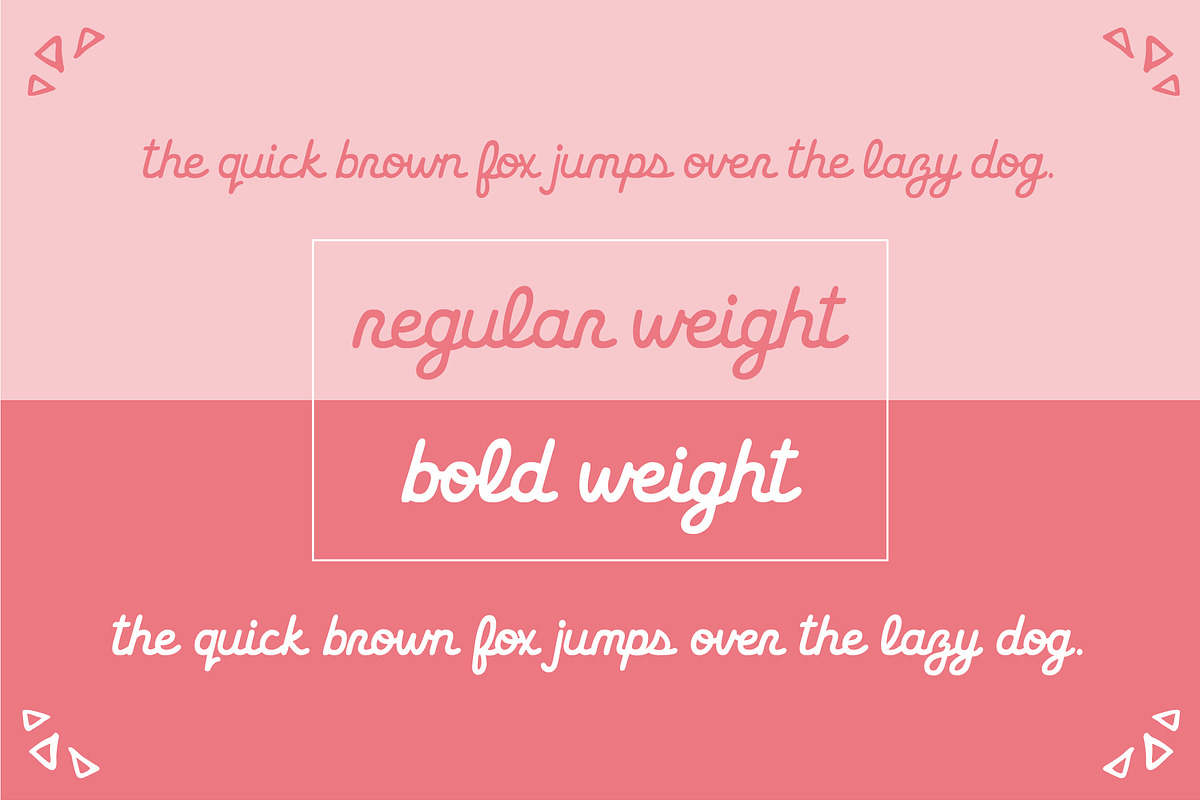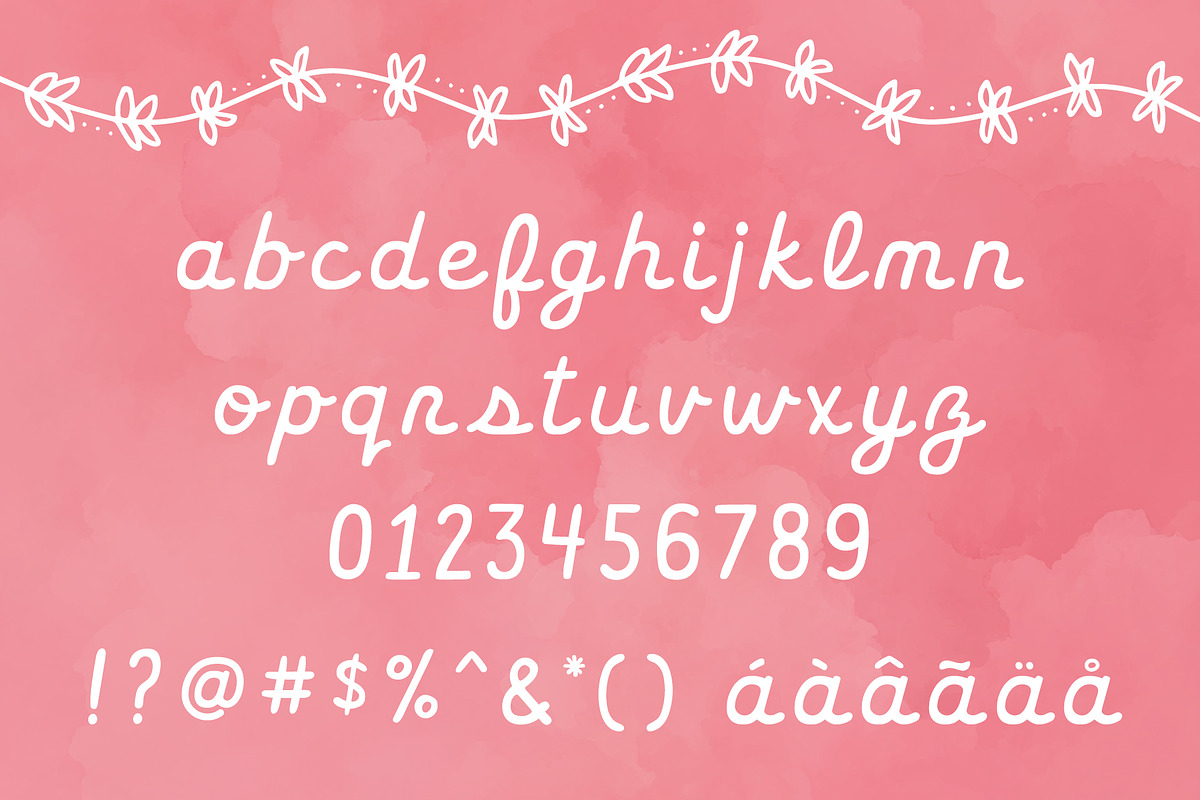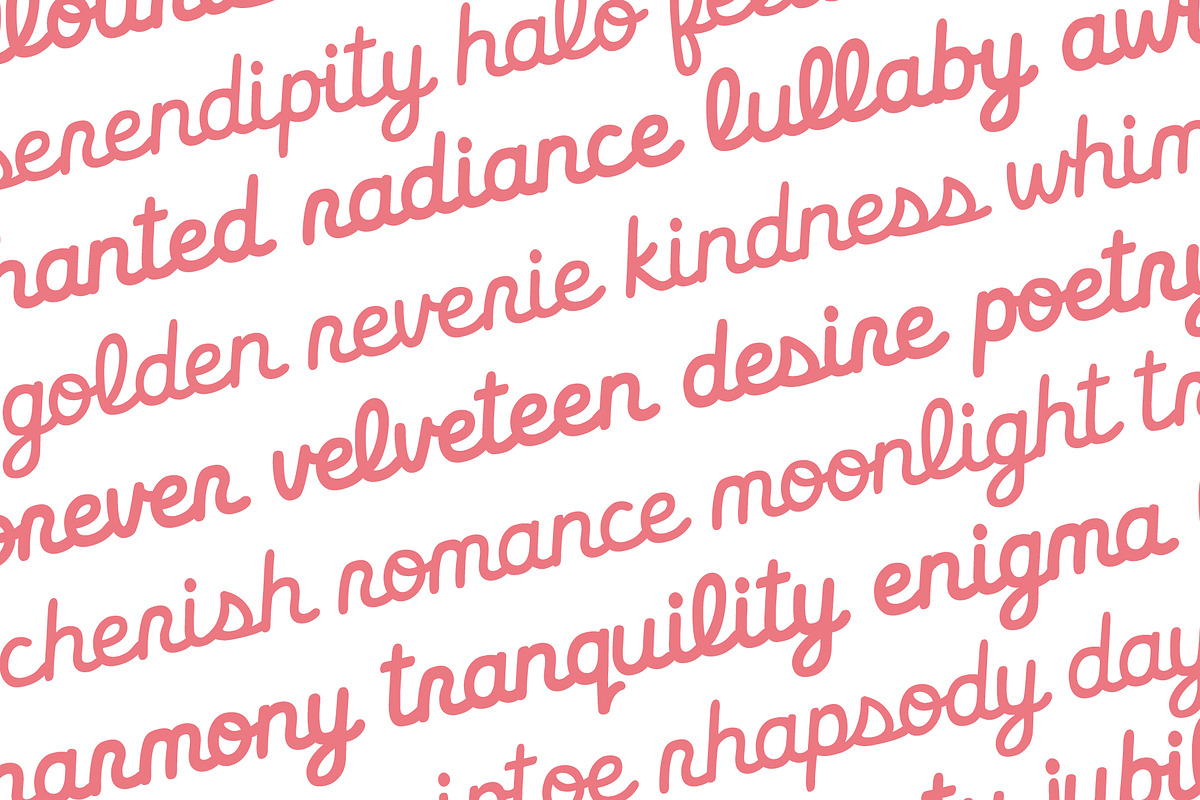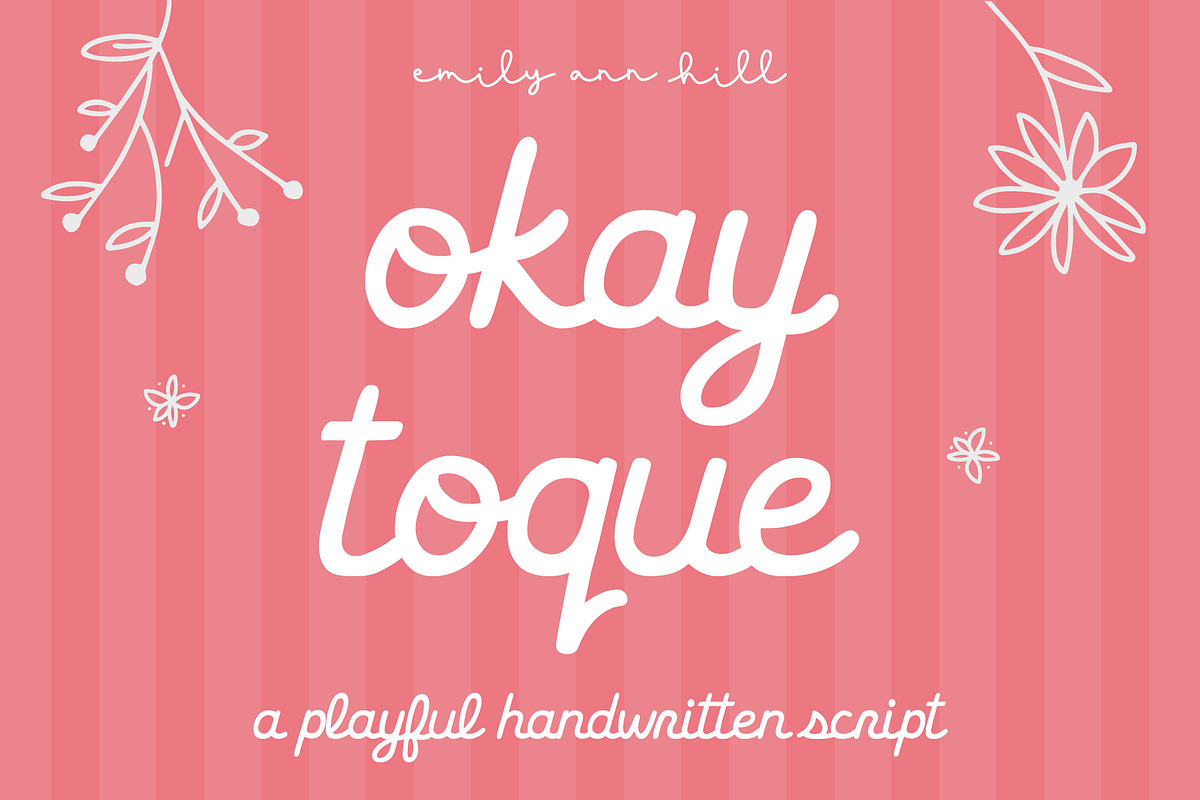
Okay Toque by Emily Ann Hill
Okay Toque is a sweet, handwritten script font with soft loops, rounded curves, and a loose, hand-drawn flow.
Available in both regular and bold weights, it gives you flexibility to play with contrast while keeping a cohesive, human-created feel.
Designed to feel warm and inviting, it’s a natural fit for playful headlines, packaging, invitations, and standout text. Its friendly style also works beautifully for greeting cards, social media graphics, product labels, or any other design that leans cheerful, relaxed, and welcoming.
- Lowercase Script Letters
- Punctuation & Symbols
- Latin Character Support for Multilingual Use
Okay Toque really comes to life at display sizes, while still staying clear in smaller, shorter bits of text. It’s ideal for creative projects that want to feel warm, friendly, and a little handmade.